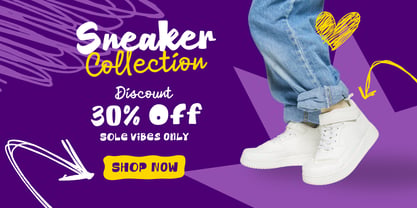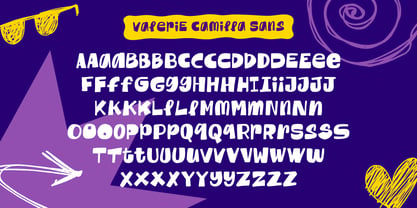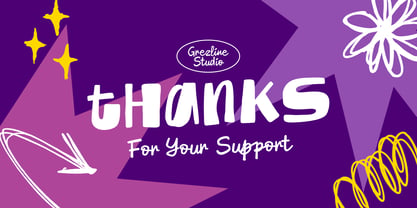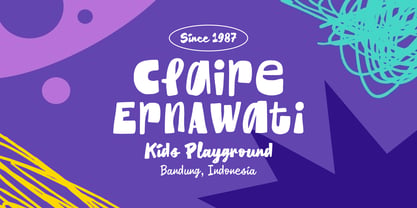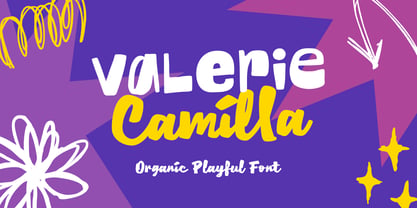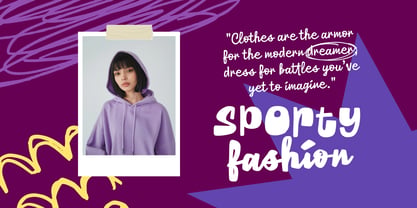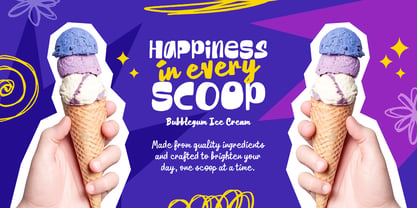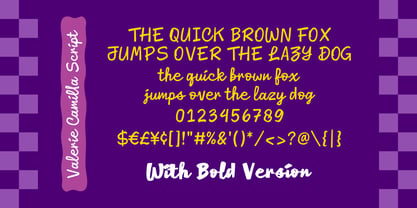
Valerie Camilla
The Valerie Camilla Font Family was designed by Akhmad Reza Fauzi and published by Grezline Studio. Valerie Camilla contains 3 styles and family package options. More about this family
Say hello to Valerie Camilla, a font that celebrates creativity, joy and playful expression. Every letter is crafted with organic shapes that feel natural, fun and full of life. Whether you’re designing for kids, lifestyle brands, or cheerful campaigns, this font brings a fresh and friendly vibe to every project. Let your typography feel human, happy, and unforgettable! Feature : - Alternate and Ligature - Multilingual Language - Works on PC & Mac - Simple installations - Accessible in the Adobe Illustrator, Adobe Photoshop, Adobe InDesign, even works on Microsoft Word. Thank you! Grezline Studio - Akhmad Reza Fauzi